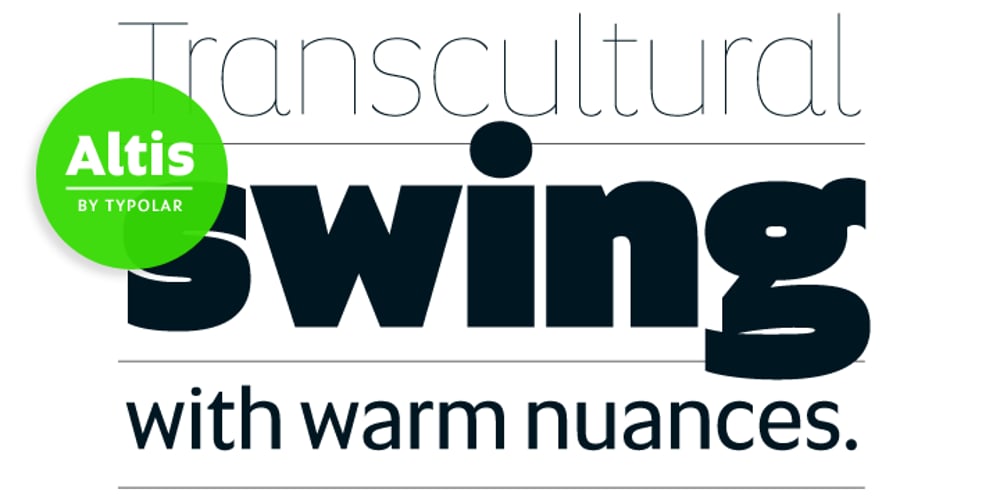
Altis Font Family was designed by Jarno Lukkarila and published by Typolar. Altis contains 10 styles and family package options. Altis combines geometric regularity and soulfulness into one font family. It resembles the traditional sanserif from the early 20th century, which communicates friendly and reads extremely well. Bring out its optimistic airiness with light styles or exploit the masculine strength of the bolds. Altis has been developed to fit present-day editorial conditions and publishing models. There are ten optically-balanced weights and practical OpenType features, which make the family versatile and operationally spot-on.